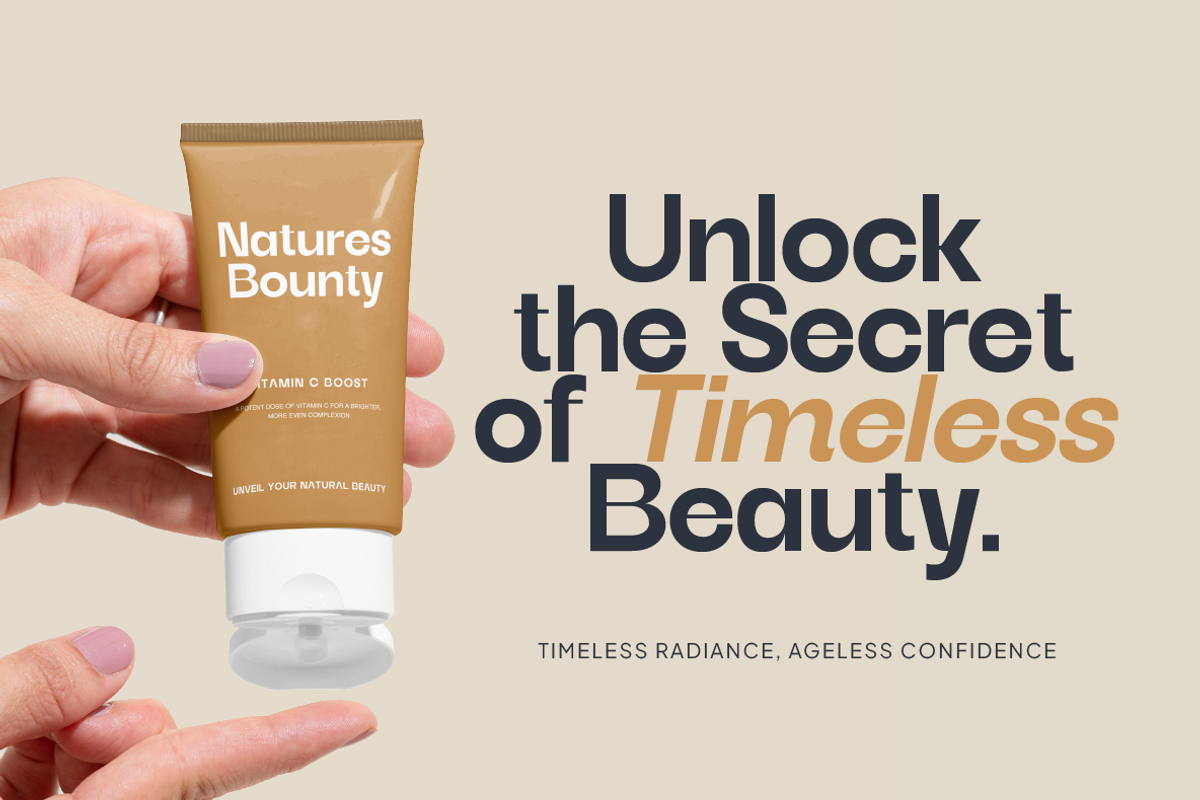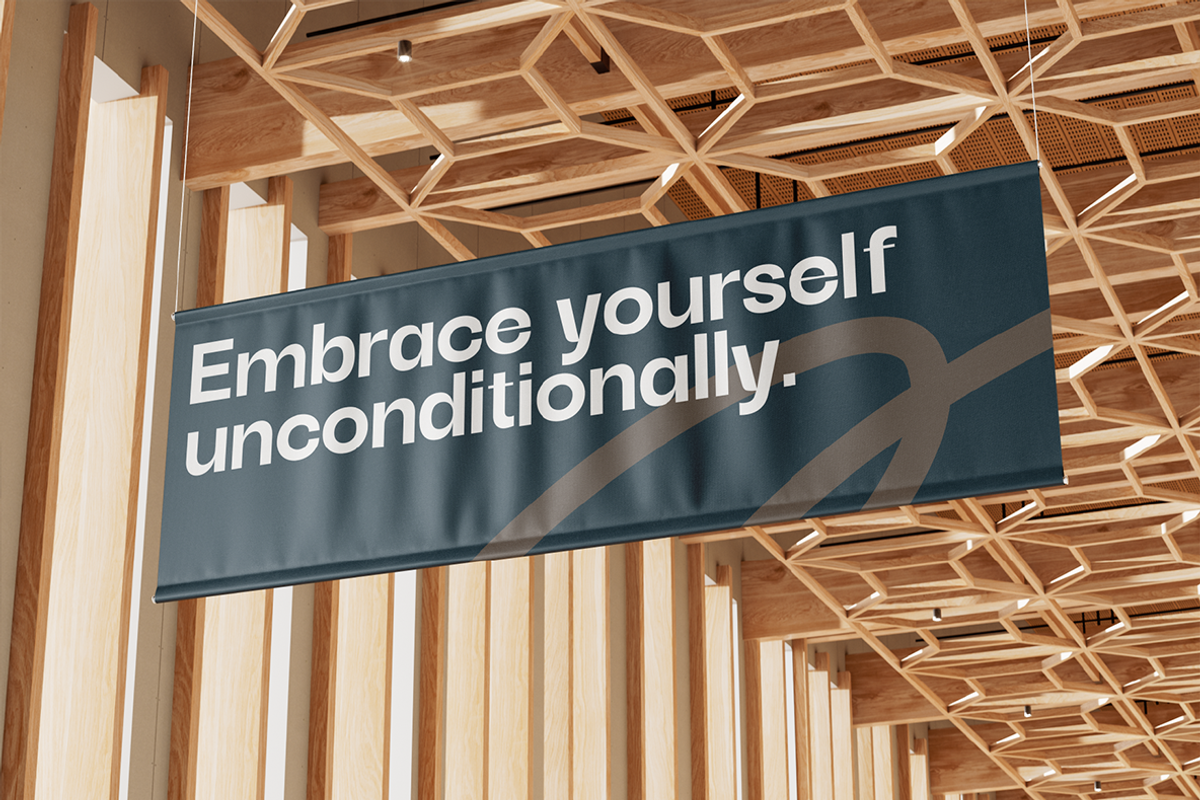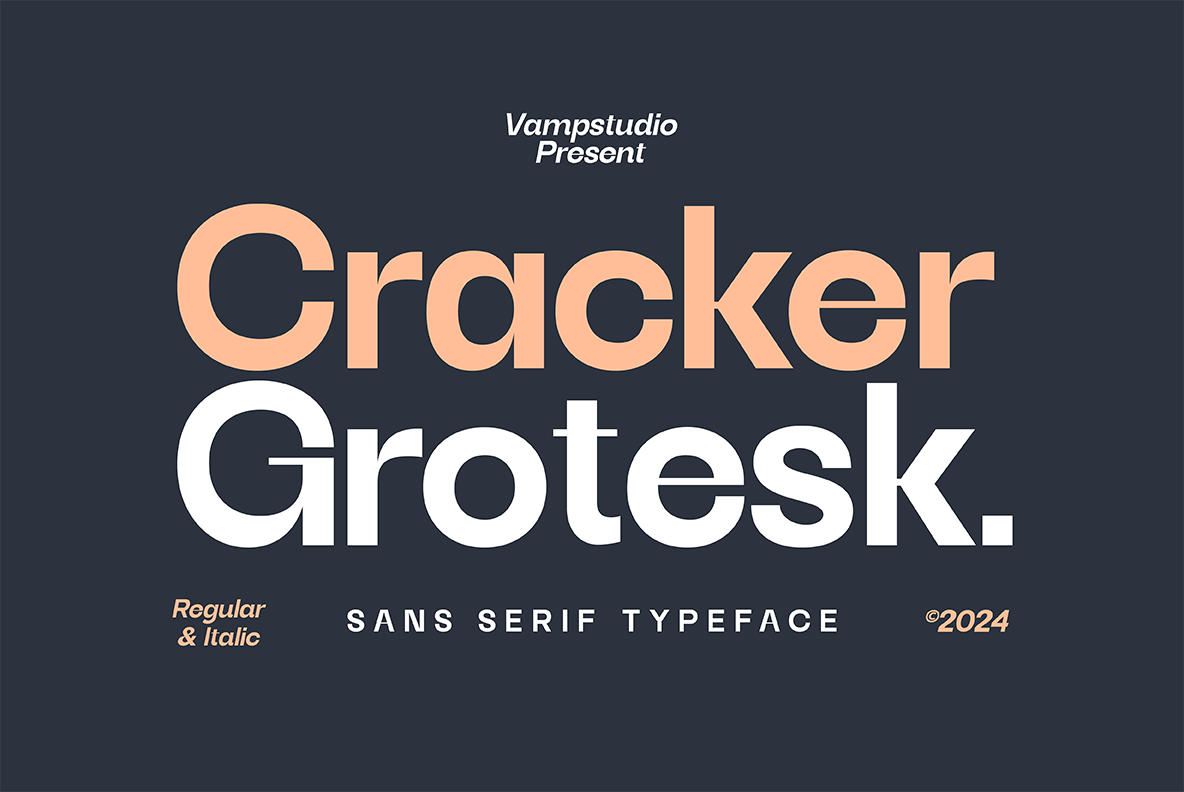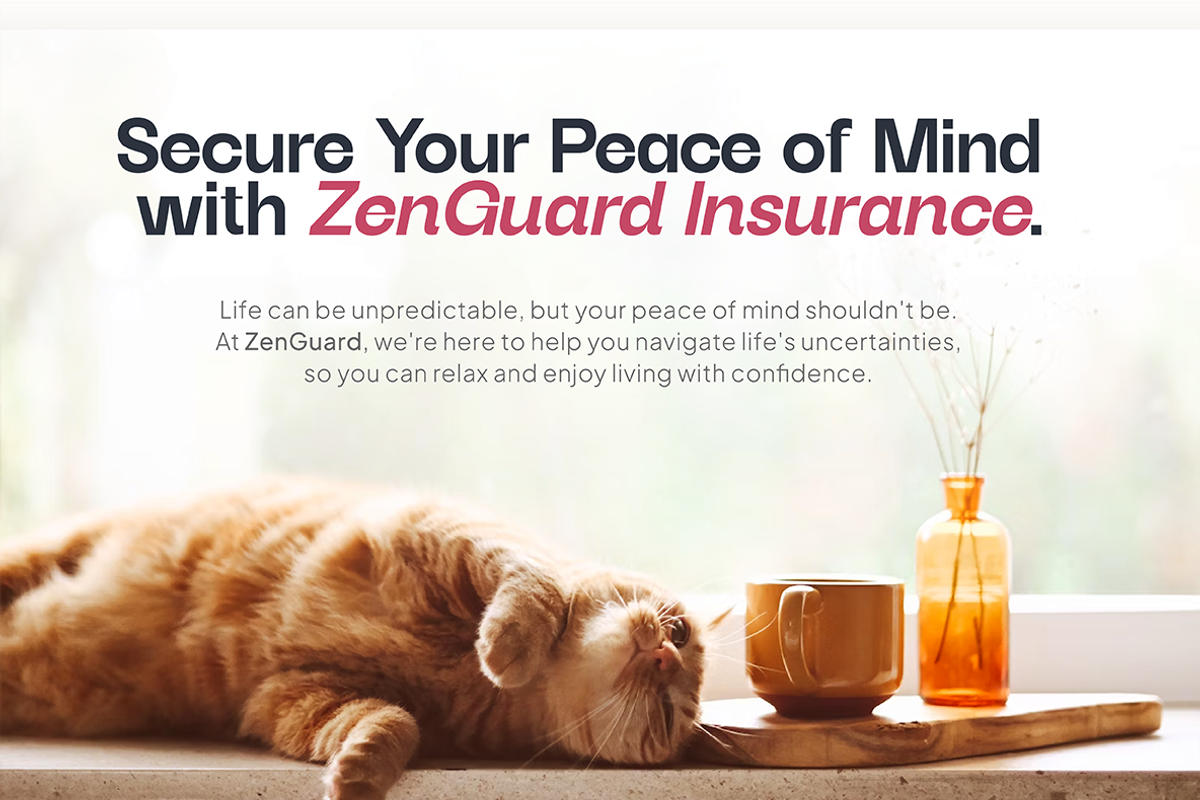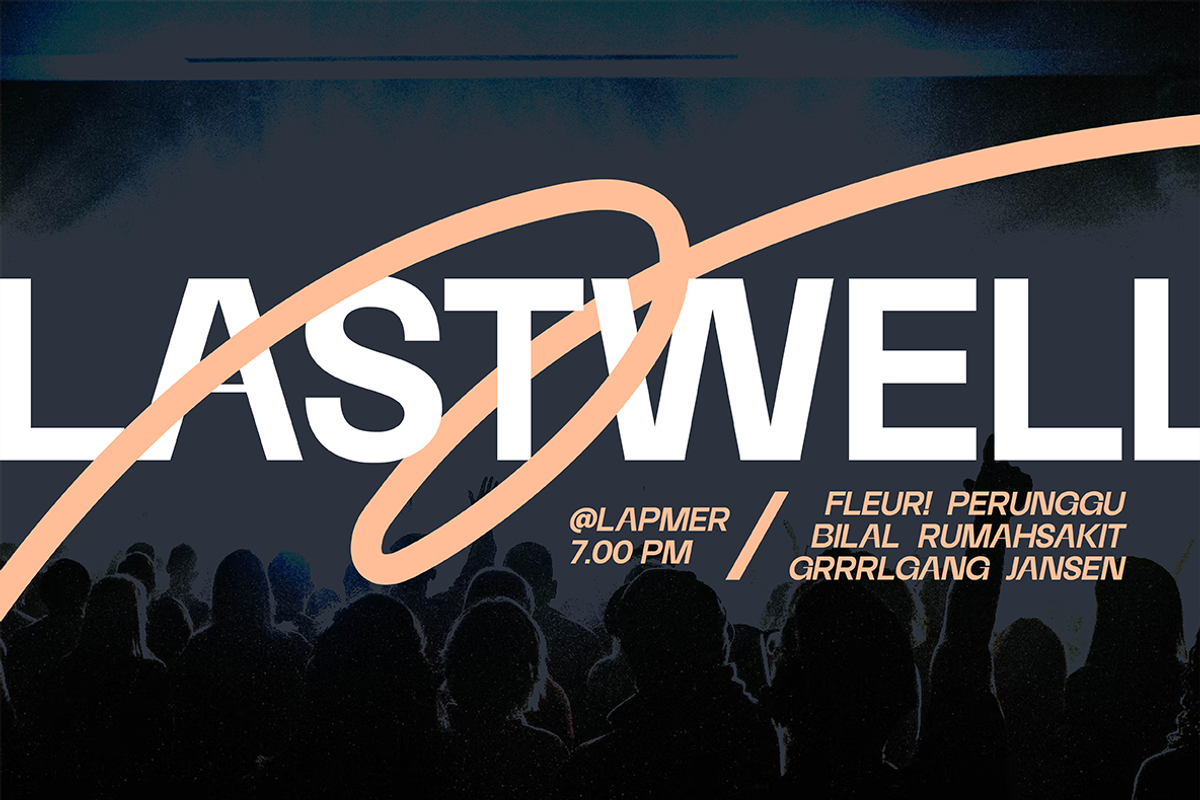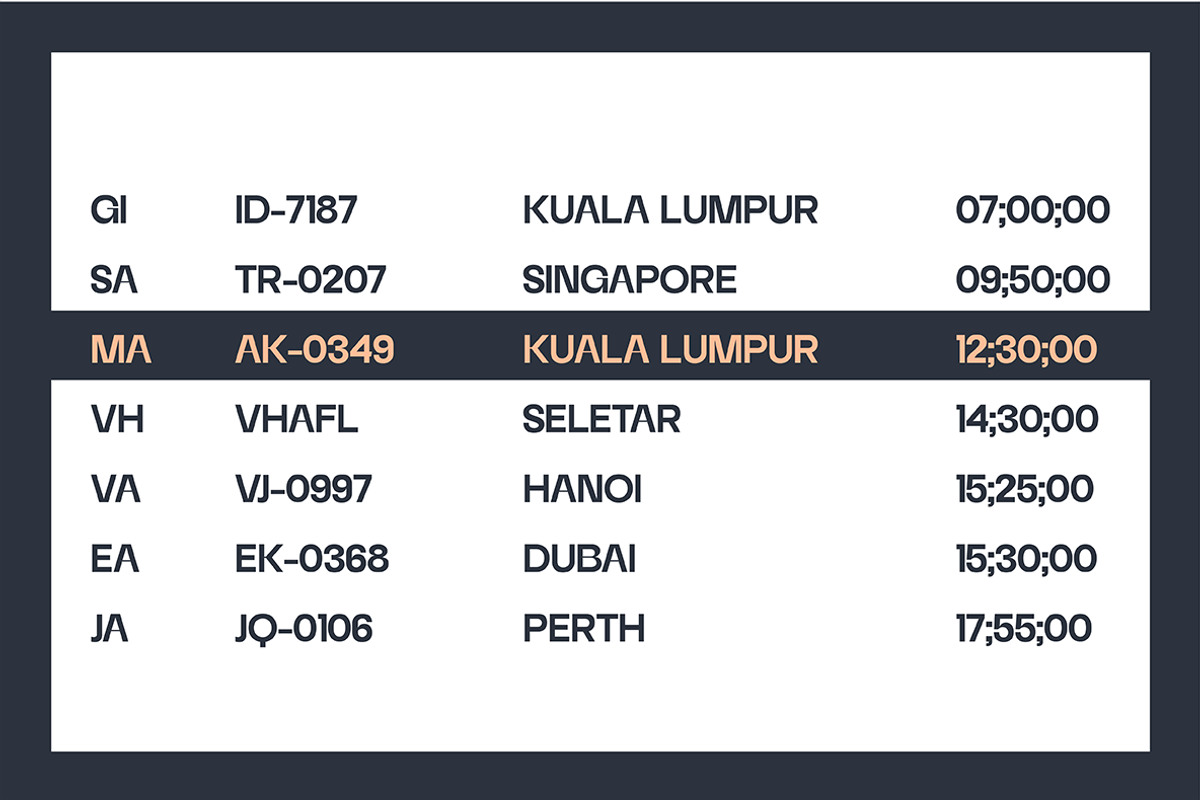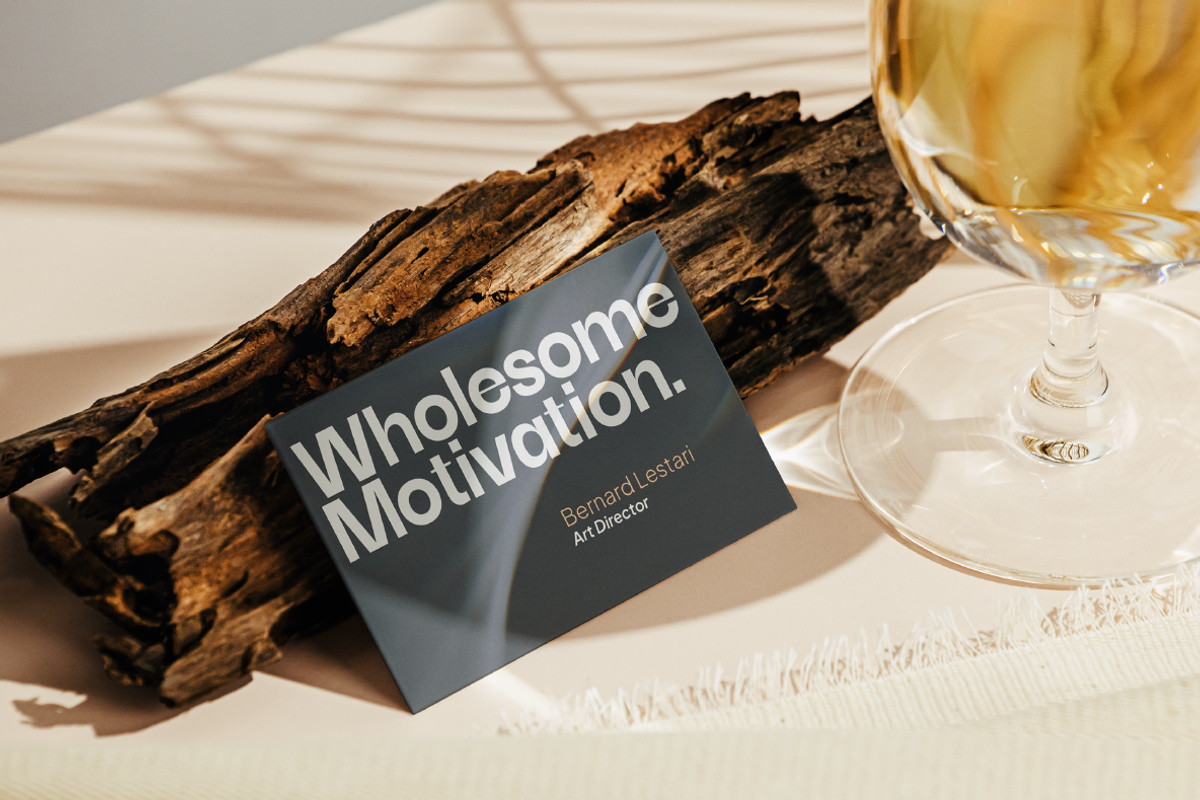
Cracker Grotesk Sans Serif Typeface
Cracker Grotesk Font: Inspired by modern sans-serif typefaces, this font brings a sleek and contemporary vibe to your designs. Perfect for creating clean, minimalist layouts with a touch of sophistication. Each character in Cracker Grotesk is meticulously crafted to blend modern aesthetics with timeless versatility. Elevate your projects with the clarity and style of this innovative sans-serif font.
Cracker Grotesk is perfect for branding projects, logo, wedding designs, social media posts, advertisements, product packaging, product designs, label, photography, watermark, invitation, stationery and any projects that need handwriting taste.